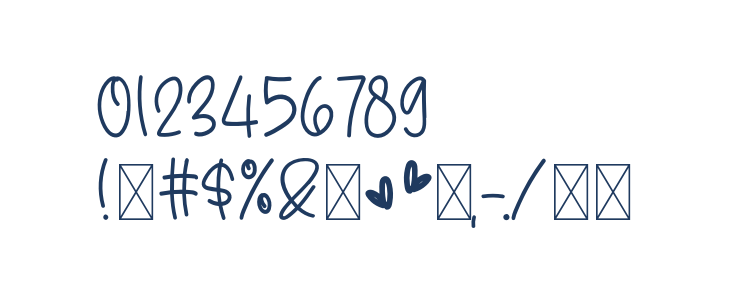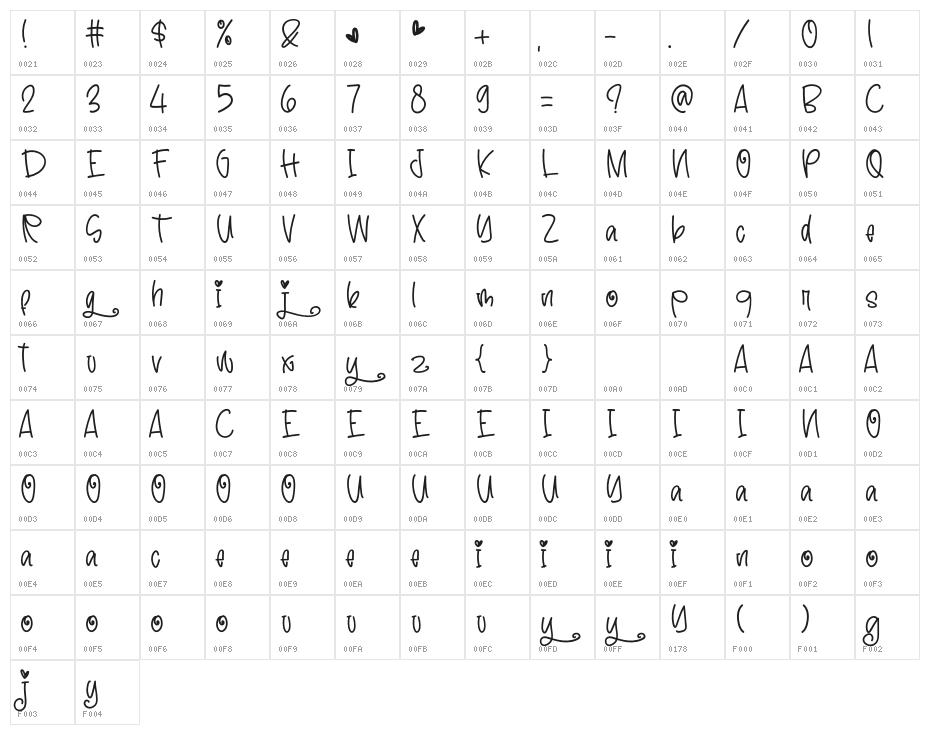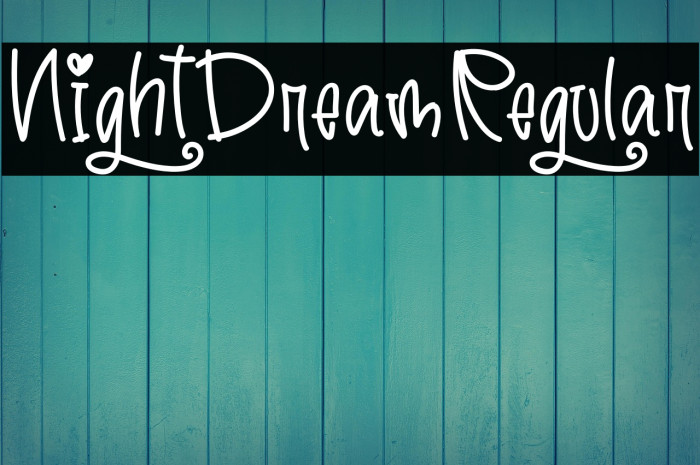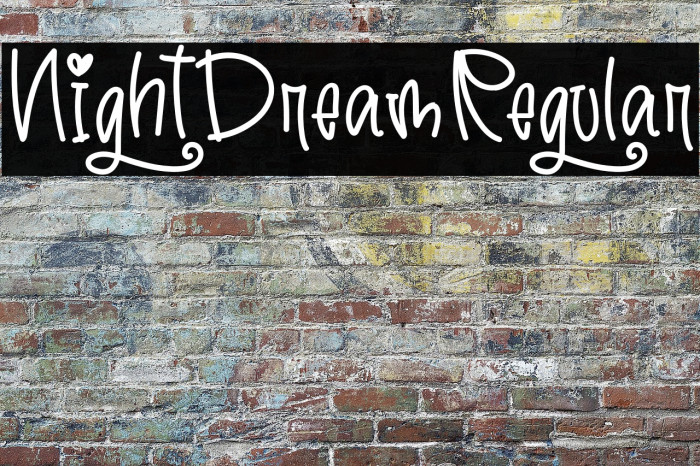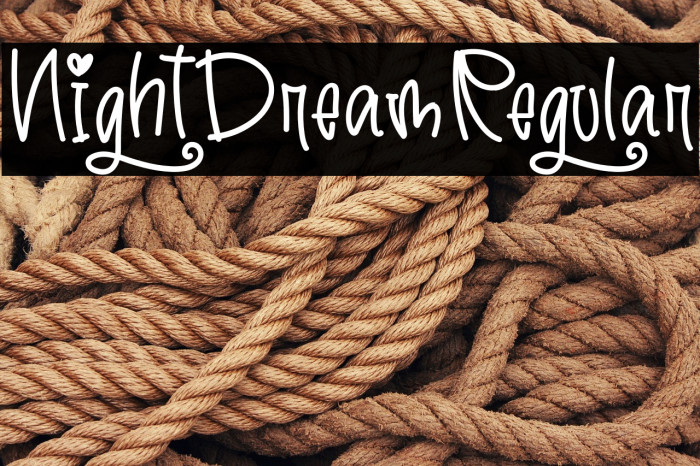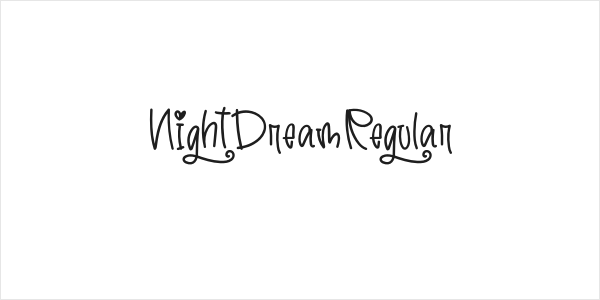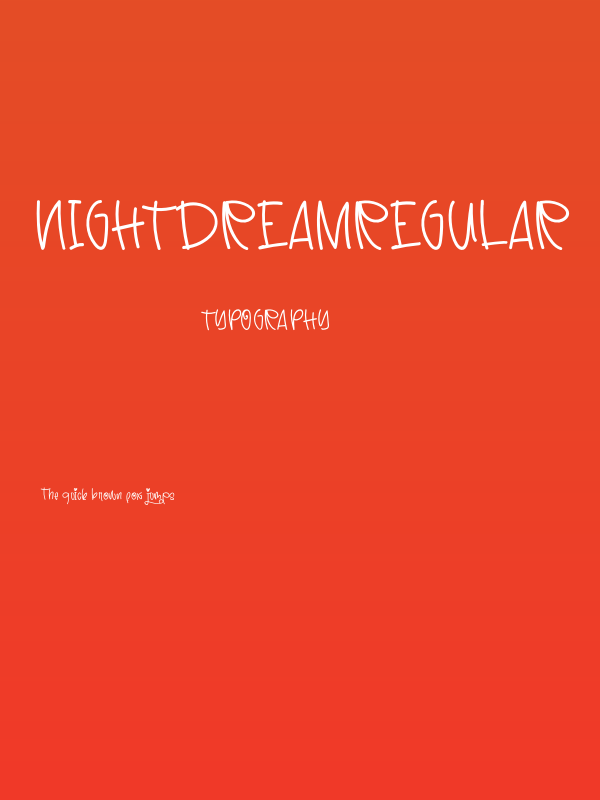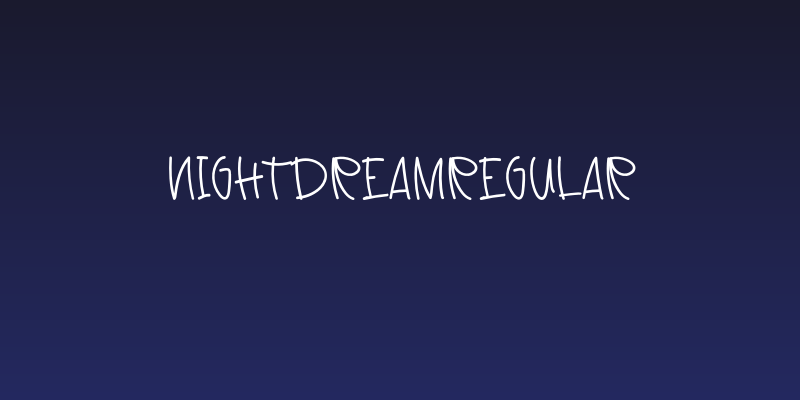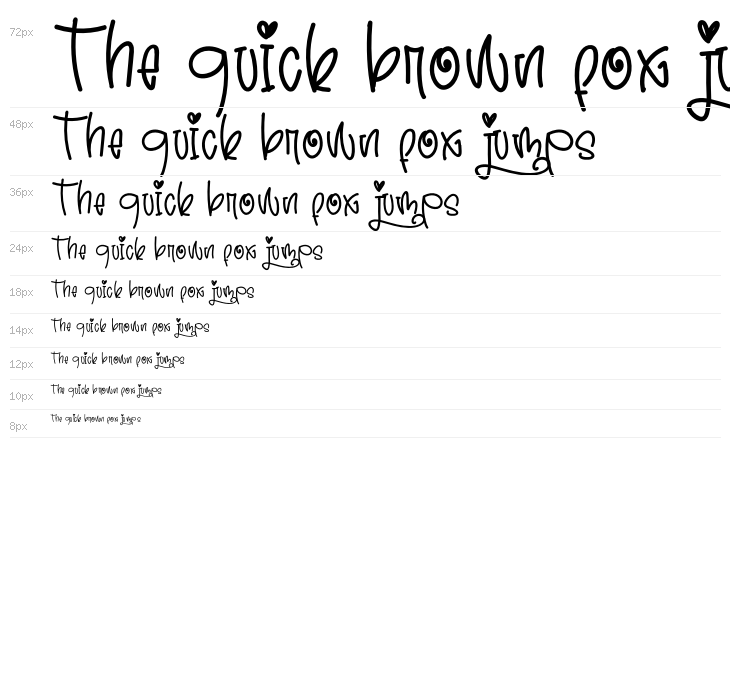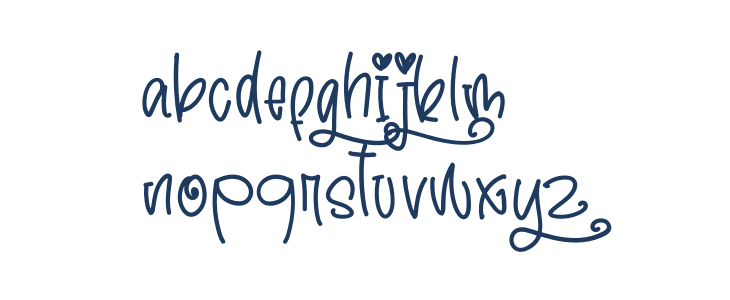
NightDreamRegular Font
NightDreamRegular Description
This playful and whimsical font features a handwritten style with a casual, informal appearance. The uppercase letters are tall and slightly uneven, giving a lively and dynamic feel. Lowercase letters are more varied, with some characters incorporating decorative elements like hearts and swirls, adding a touch of charm and creativity. The numbers are consistent with the overall style, maintaining the same playful and casual vibe. Special characters are creatively designed, with some incorporating unique decorative elements. This font is perfect for projects that require a fun, lighthearted, and personal touch.